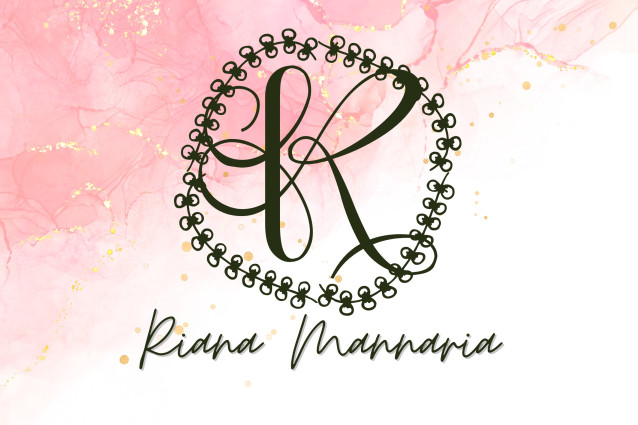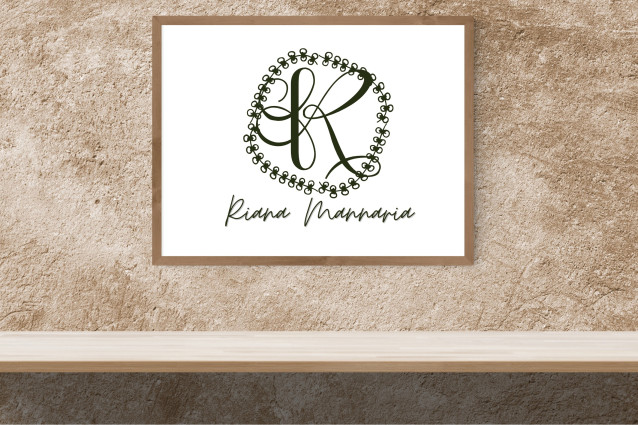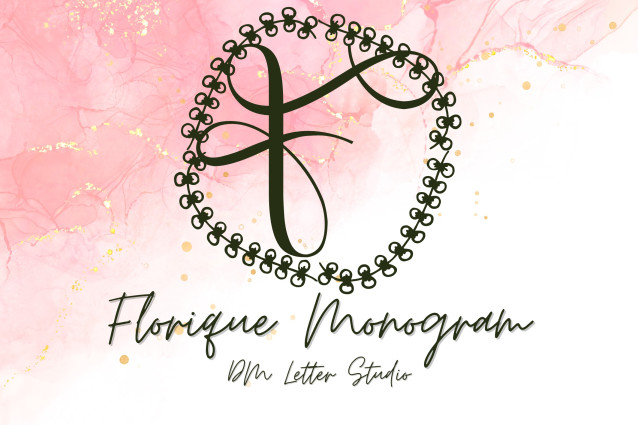
Florique Monogram Font is an elegant and high-end monogram font inspired by botanical flourishes and classic lettering. Each uppercase character is adorned with floral accents, blending timeless sophistication with organic detail. Ideal for wedding branding, upscale packaging, personal stationery, and boutique logos, Florique Monogram adds a refined, floral twist to any design.